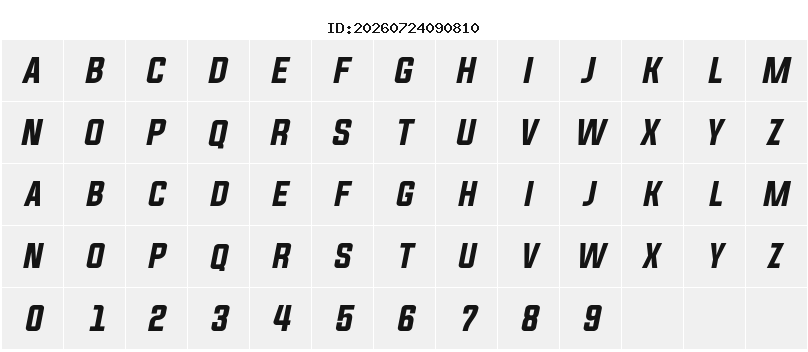
Evogria Preview
• Font Name: Evogria
• Full Font Name: Evogria Italic
• Version: Version 1.00 August 23, 2014, initial release
• Designer: Situjuh Nazara
About Evogria.otf
Evogria.otf is a modern, elegant sans-serif font designed for ultimate readability and visual harmony. Perfect for branding, headlines, web design, and print materials.